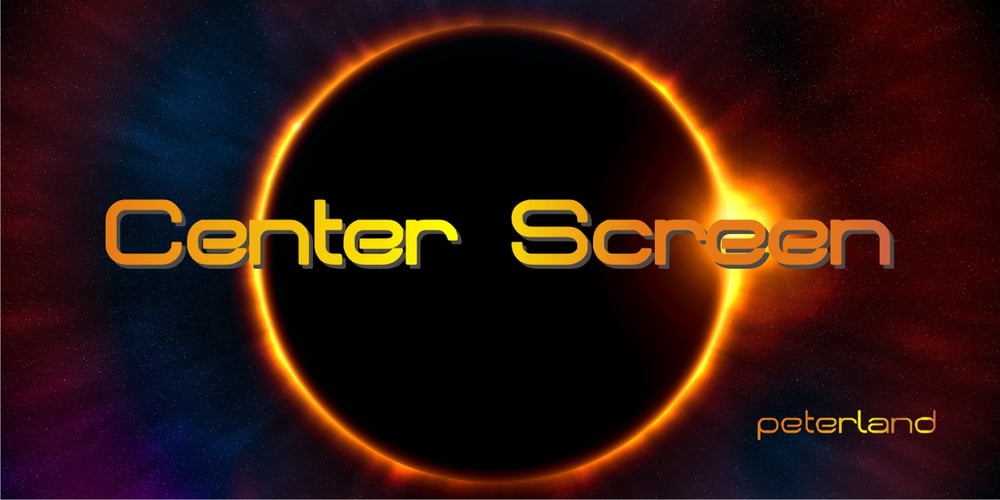
Center Screen Font Family was designed by Peterland Team and published by Peterland. Center Screen contains 10 styles and family package options. Center Screen is a universal font dedicated to making office documents in popular text editors. Due to the interesting disign it is also used for making websites and advertising for films and posters. Center Screen font also allows to create images of work in many forms of marketing due to its versatility and adaptability to many languages of the world. Creating images and text with Center Font Screen allows you to gain competitive edge by highlighting your brand and by bringing attention to the originality of the presentation and the readability of the message.